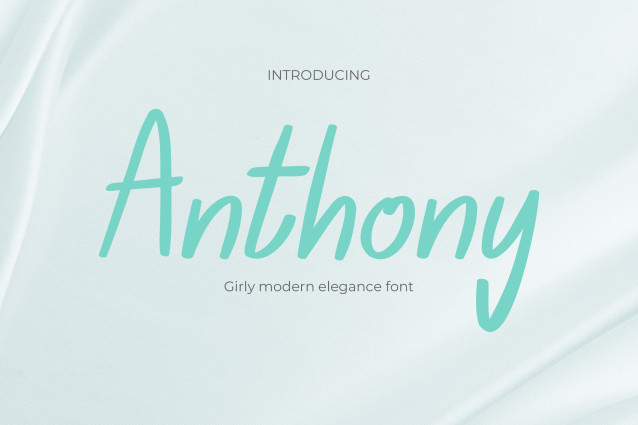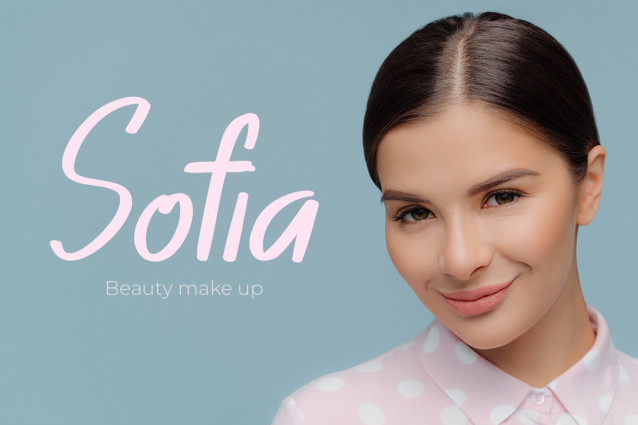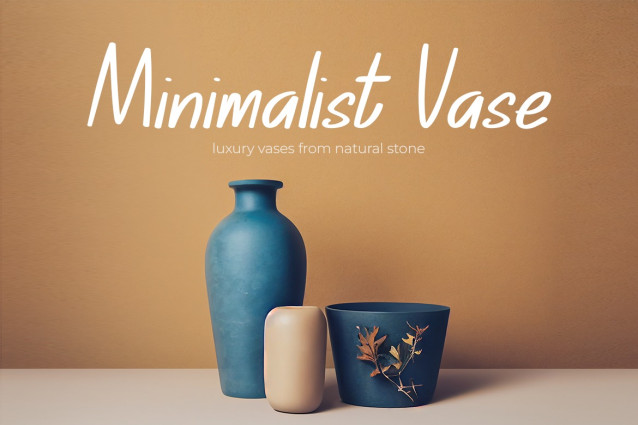
Anthony Font
Handwriting Font Anthony is a modern script typeface that seamlessly blends natural hand-lettering charm with a smooth, flowing design. Not only do its elegant curves and refined strokes create a sophisticated yet approachable look, but they also make it ideal for projects needing a personal touch. Furthermore, the font captures handwritten text’s essence with a stylish balance of fluidity and structure, ensuring both readability and aesthetic appeal.
Moreover, Handwriting Font Anthony is highly versatile. It features well-balanced letterforms, beautiful ligatures, and a natural writing rhythm. Whether used for branding, invitations, or digital content, this font exudes warmth and personality. In addition, the carefully crafted letter connections and stylish swashes add an artistic and sophisticated feel to any design.
Beyond aesthetics, Handwriting Font Anthony ensures excellent legibility. Consequently, it works well for both print and digital applications. Its organic, flowing nature pairs well with various design elements, from minimalist layouts to intricate compositions. Furthermore, this script typeface is not only visually appealing but also functional, seamlessly integrating into creative projects.